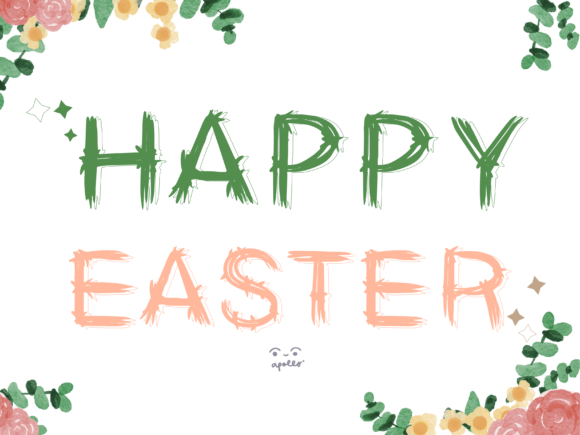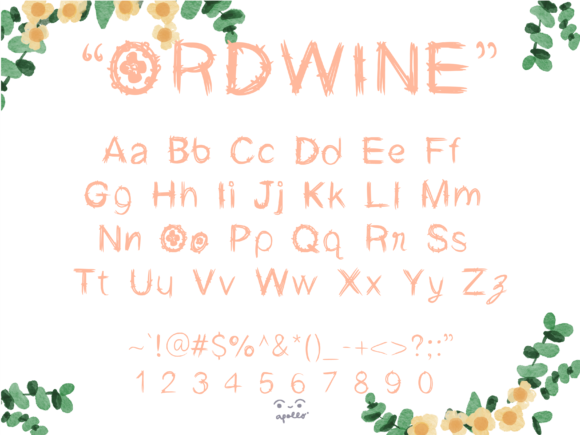
Introduction to Ordwine Font
Have you ever been stuck in front of a blank canvas, searching for the perfect font to bring your creative project to life? It’s a moment we’ve all experienced at some point, and it’s frustrating. But what if you stumbled upon a font that not only met your expectations but exceeded them? Welcome to the world of Ordwine Font, a unique display font that’s about to become your go-to design resource.
Whether you’re working on a blog post, designing a logo, or creating a set of invitations, Ordwine Font is the perfect addition to your design toolkit. With its transparent background and high-quality design, this font is a game-changer for designers. And the best part? It’s available for free download, making it an invaluable resource for creatives on a budget.
So why is Ordwine Font so valuable for designers? For one, its versatility makes it a great choice for a wide range of projects. From branding and advertising to photo albums and decorations, this font is sure to add a touch of elegance and sophistication to any design.
Key Features of Ordwine Font
- High-quality design: This font boasts a high-quality design with intricate details, perfect for adding a touch of elegance to your project.
- Transparent background: The Ordwine Font features a transparent background, allowing you to easily combine it with other design elements.
- Large character set: The font includes a large character set, including uppercase and lowercase letters, numbers, and punctuation marks.
- High resolution: The Ordwine Font is designed at a high resolution of 300 DPI, ensuring that it looks crisp and clear in a variety of sizes.
- Perfect for creative projects: With its unique and intricate design, the Ordwine Font is perfect for use in creative projects such as logos, branding, and typography-based designs.
Honest Review: Ordwine Font
As a designer, I’m always on the lookout for high-quality design resources that can elevate my creative projects. Recently, I stumbled upon the Ordwine Font, and I must say it’s a great addition to my design arsenal.
One of the standout features of the Ordwine Font is its versatility. It’s perfect for a wide range of creative projects, from branding and marketing materials to editorial and publishing designs. The font is available for free download, which is a huge bonus for designers on a budget.
- ✨ High-quality design: The Ordwine Font is meticulously crafted with attention to detail, making it a great choice for designers who want a professional-looking font.
- ✨ Versatile: The font is suitable for a wide range of creative projects, from branding to publishing.
- ⚠️ Limited customization options: While the font is high-quality, it may not offer the level of customization that some designers are looking for.
- ⚠️ No transparent background option: If you need a font with a transparent background, you may need to look elsewhere.
Overall, I’m impressed with the Ordwine Font. It’s a solid addition to any designer’s toolkit, and its versatility and high-quality design make it a great choice for a wide range of creative projects.
When using Ordwine Font with a transparent background, make sure to select a background color or image that complements the font. You can also use the font with a solid background for a more classic look.
To get the most out of Ordwine Font, use it in a high-quality design project. Experiment with different font sizes, colors, and styles to create a unique look. You can also combine Ordwine Font with other design resources to create a cohesive design.
Common Use Cases for Ordwine Font
Ordwine Font is ideal for use in creative projects, such as graphic design, digital art, and typography. You can use it to create eye-catching headings, titles, and body text. The font’s unique style makes it perfect for use in modern and minimalist designs.